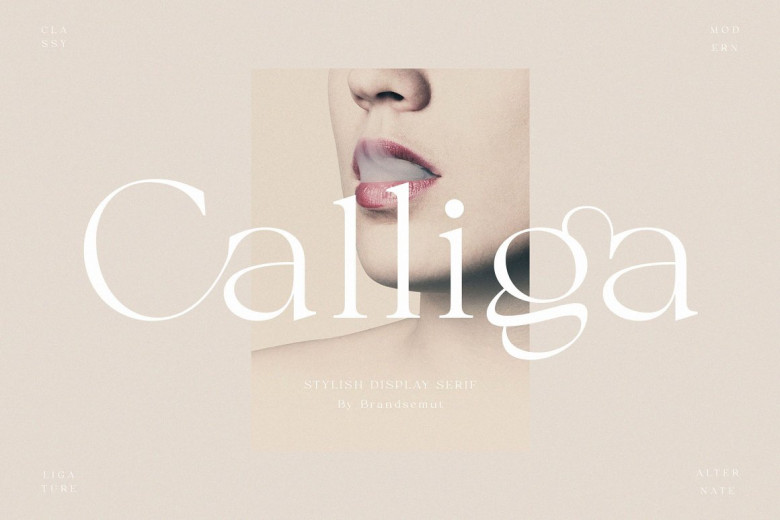
Calliga Font
Cool and luxury font family designed by Arwah Studio. Introducing Calliga Stylish Ligature ! Calliga Font is a modern and elegant serif font. This item features a bold unique design style that is perfect for making things fresh and easy. This font is modern and luxury typeface that makes your project more beautiful with natural touch.
Font can be used in various magazines, websites, and social media. Perfect for many design projects such as logo design, branding, blog graphics, stylish, classy projects, magazines, social media, and general designs to make your projects stand out or book cover! Also Contact me if you want your language included or If there are any issues with the font. I’d be happy to help!!
Calliga Serif Font